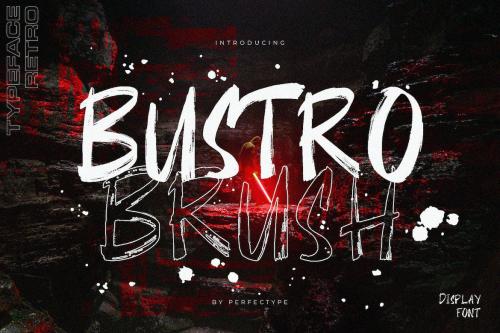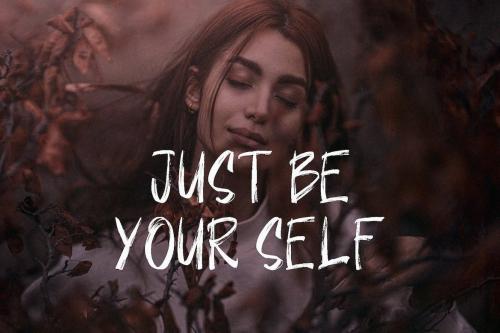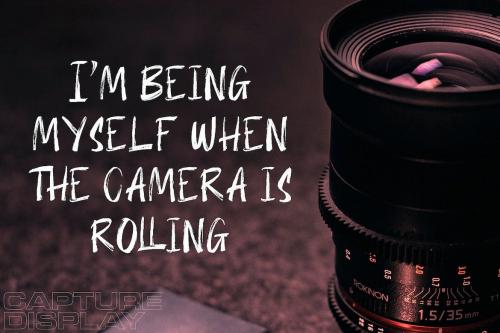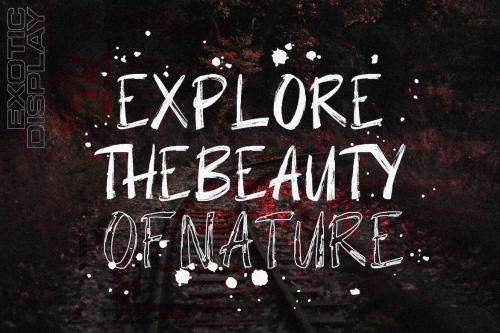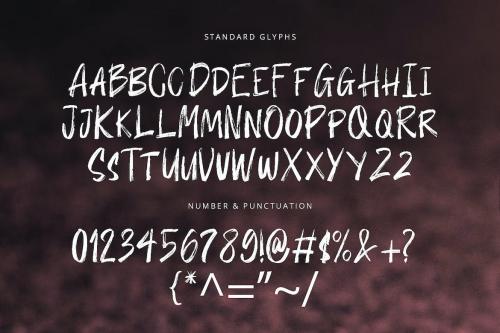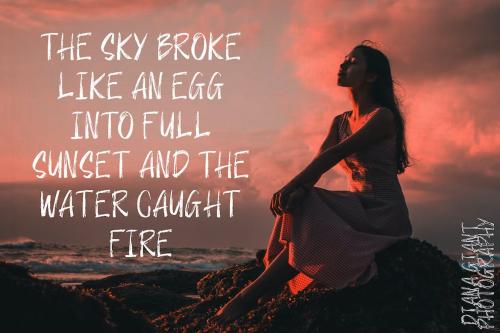
布斯托刷字型
Bustro Brush Font
**Bustro** is a supercharged brush font style, street-wise brush font bursting with energy. With extra attention to quick strokes and sharp details. This font is perfect for challenging jobs, titles, t-shirts, websites, hoodies, clothing, headline, logotype, branding, advertising, event, and various print and digital media with energy.